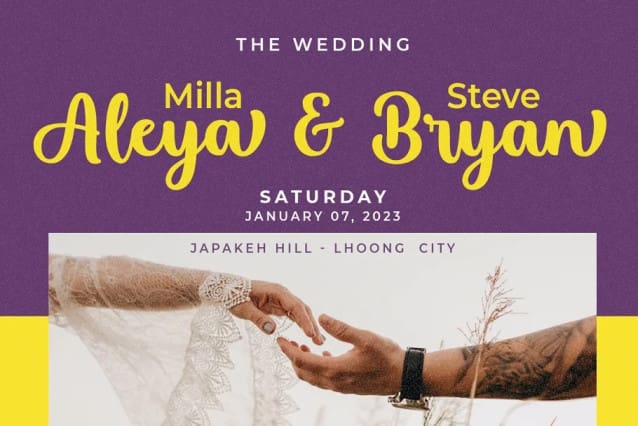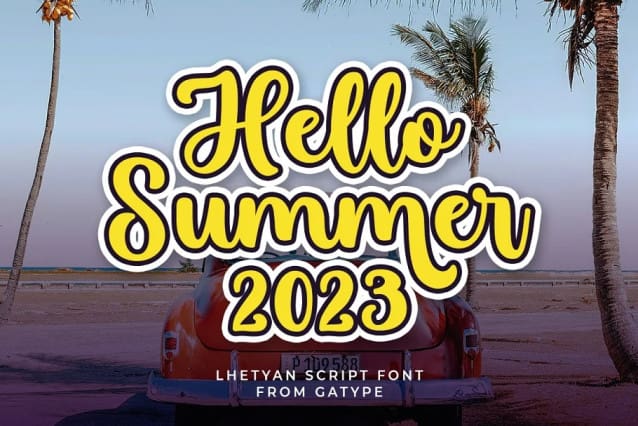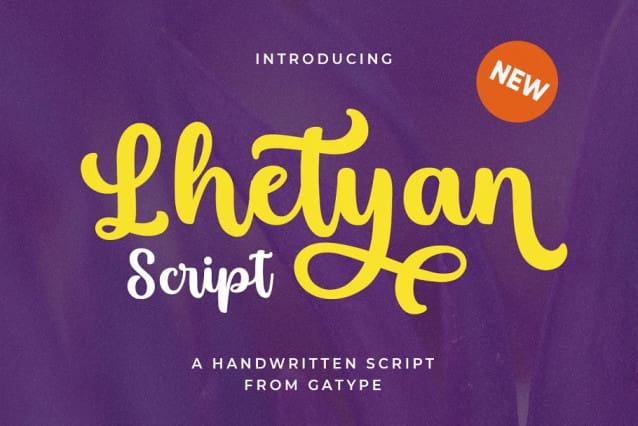
Lhetyan Script Font
Lhetyan Script Font is a great family of brushes for all kinds of display uses from packaging to posters & logos to headlines. Lhetyan as a basic letterform is bold and clear and there are many alternatives for a more customized look. This typeface comes in uppercase, lowercase, punctuation, symbols & numbers, alternative style sets, binders, etc. Also supports multilingual and PUA encoded already.